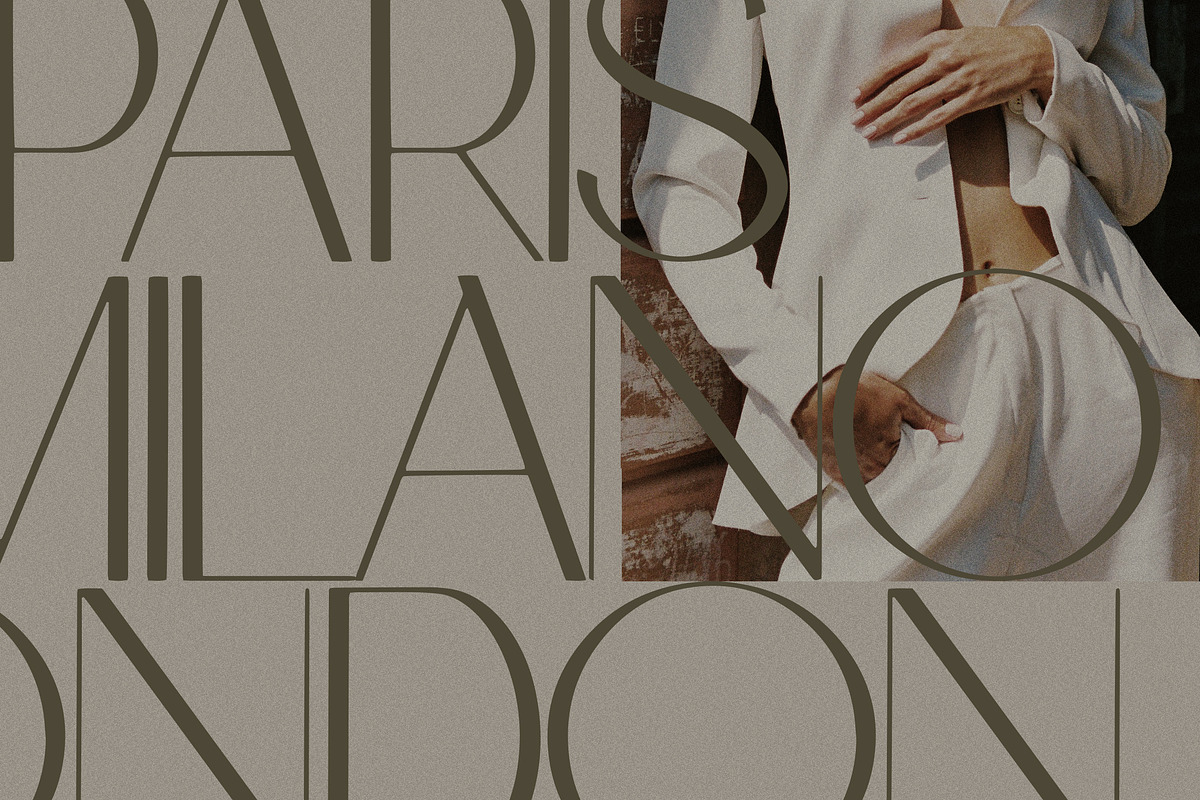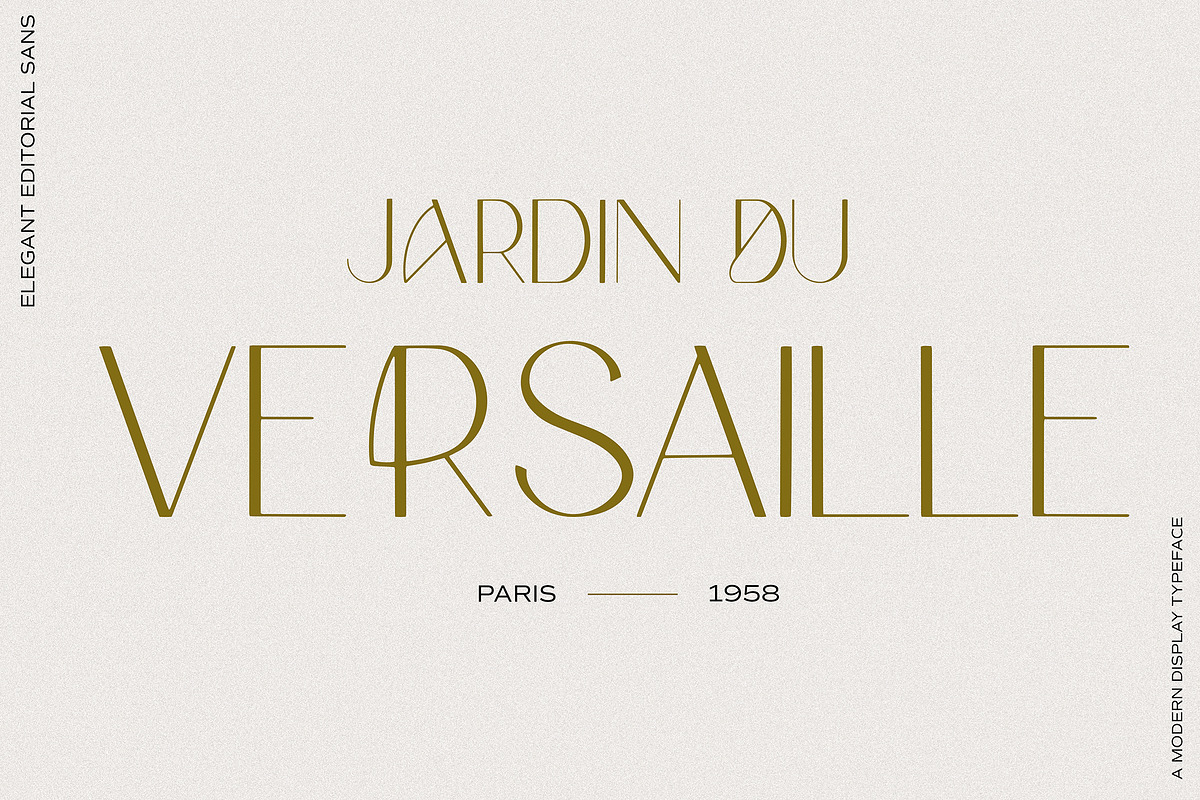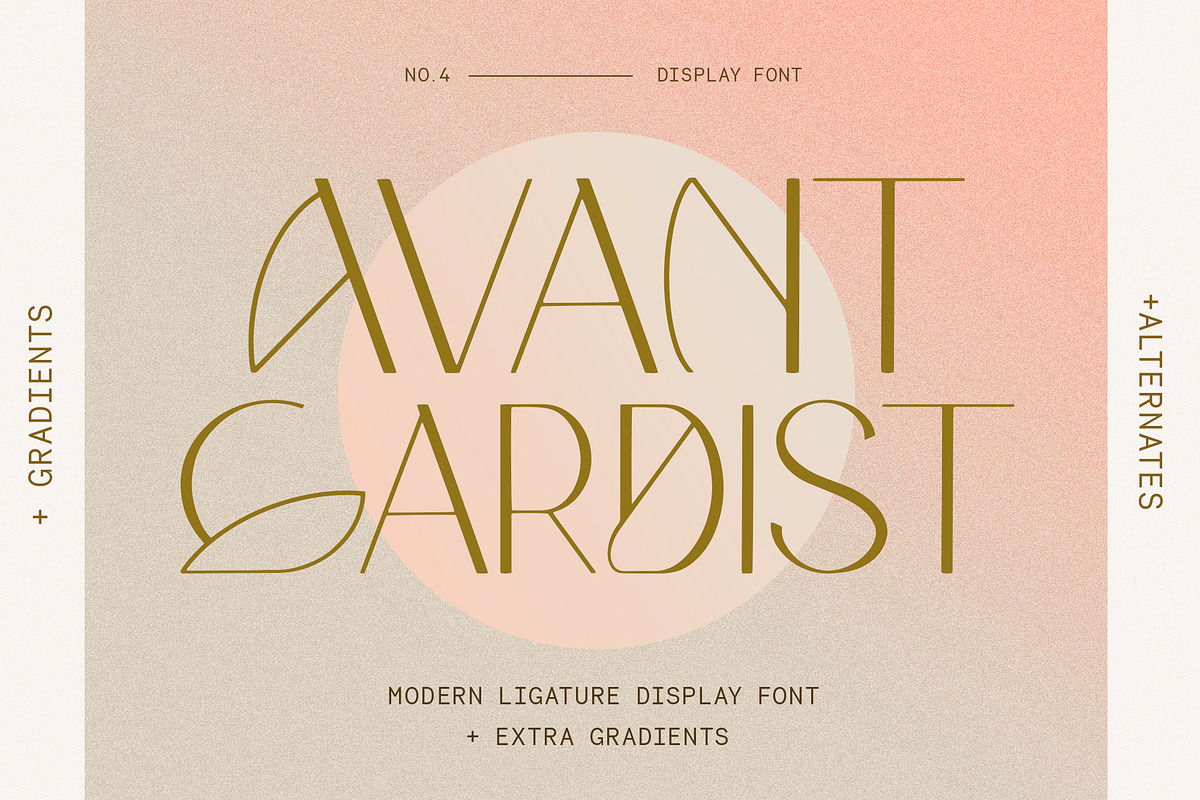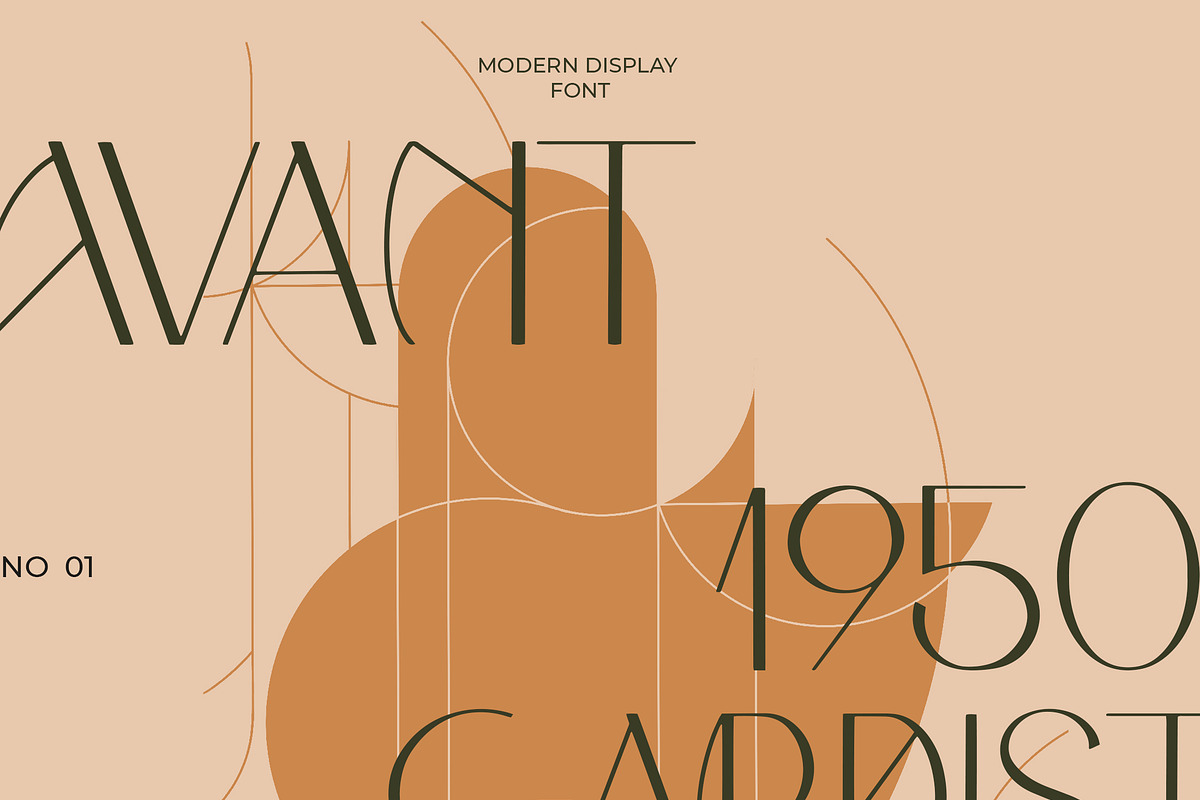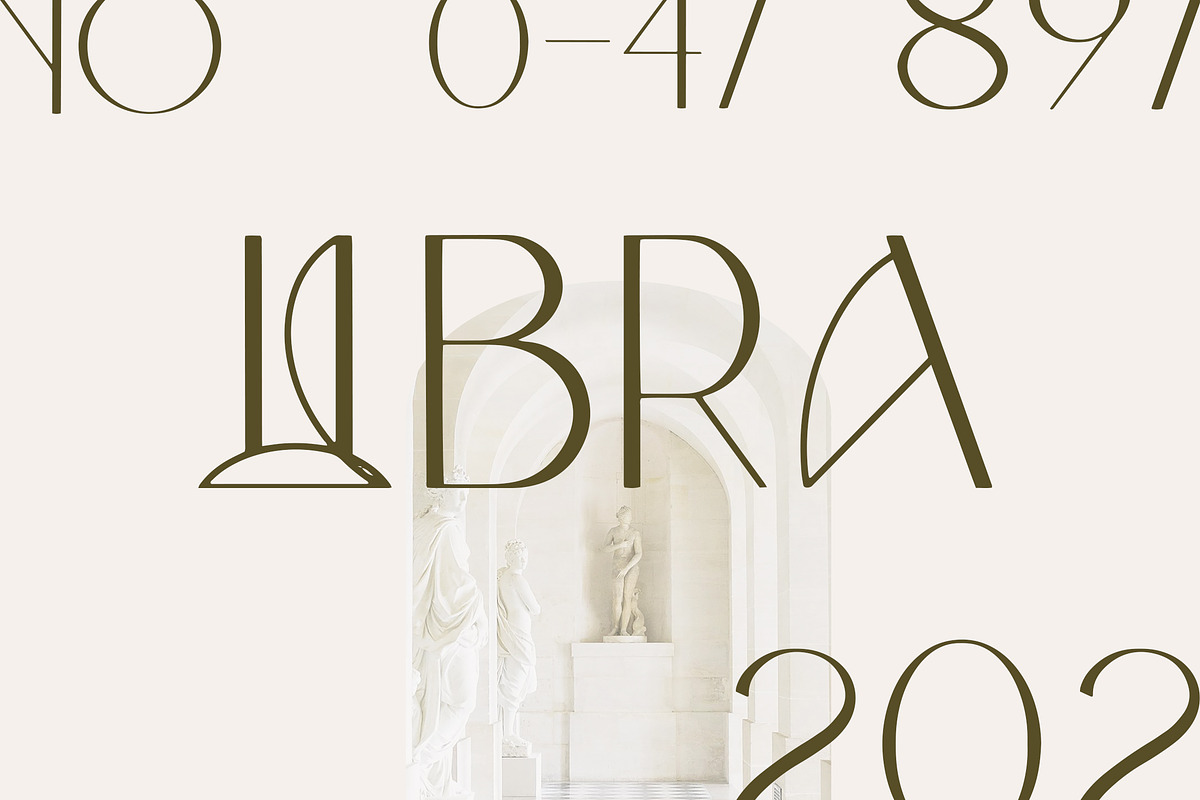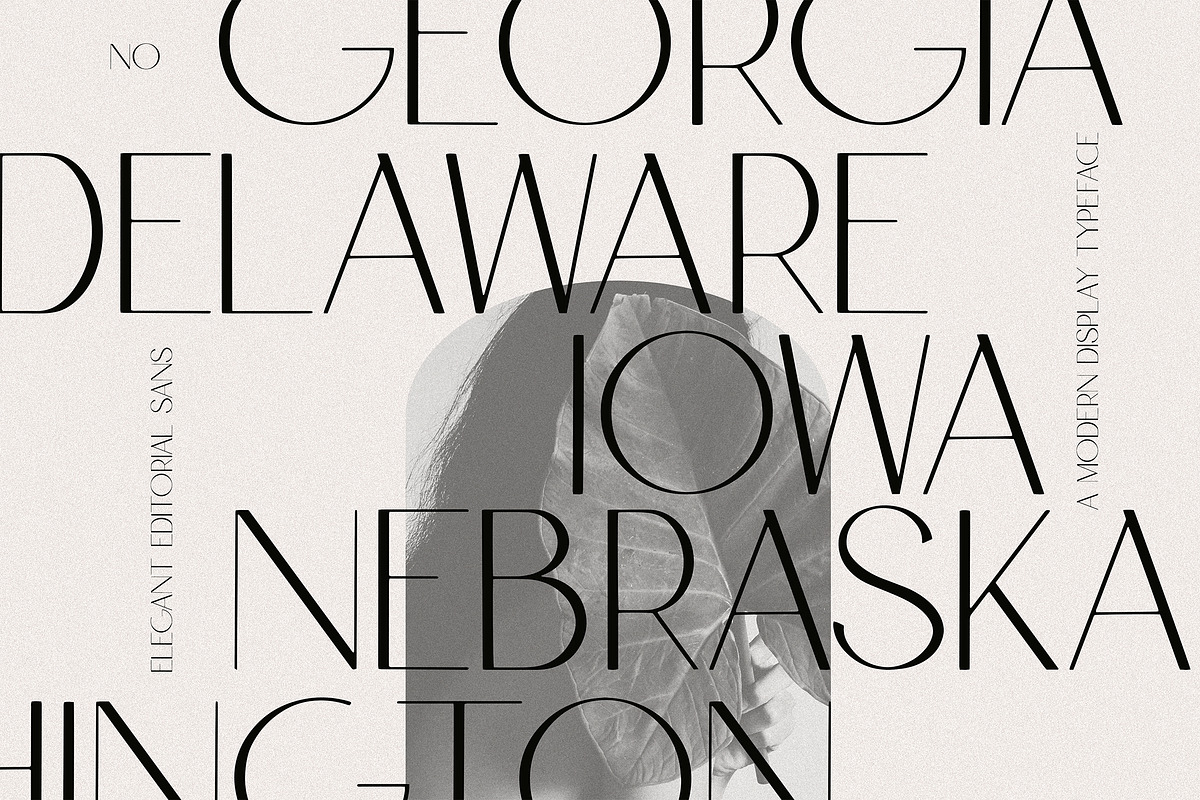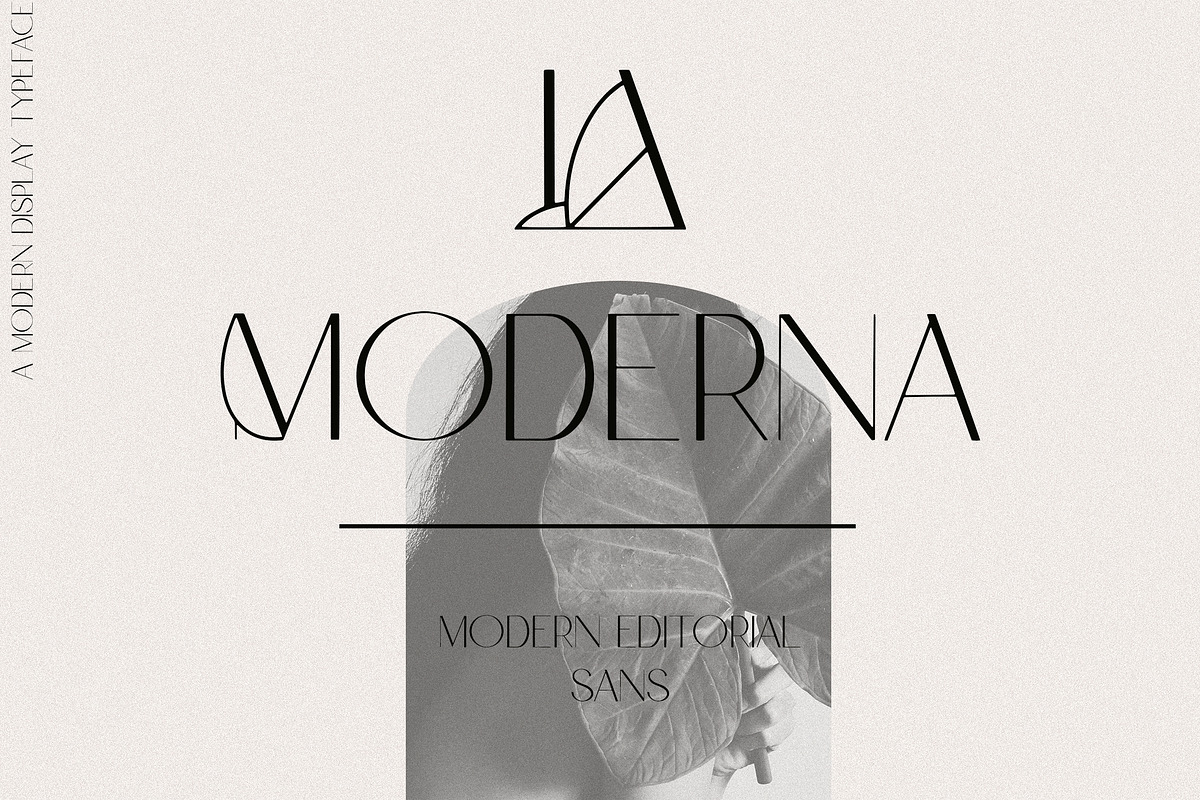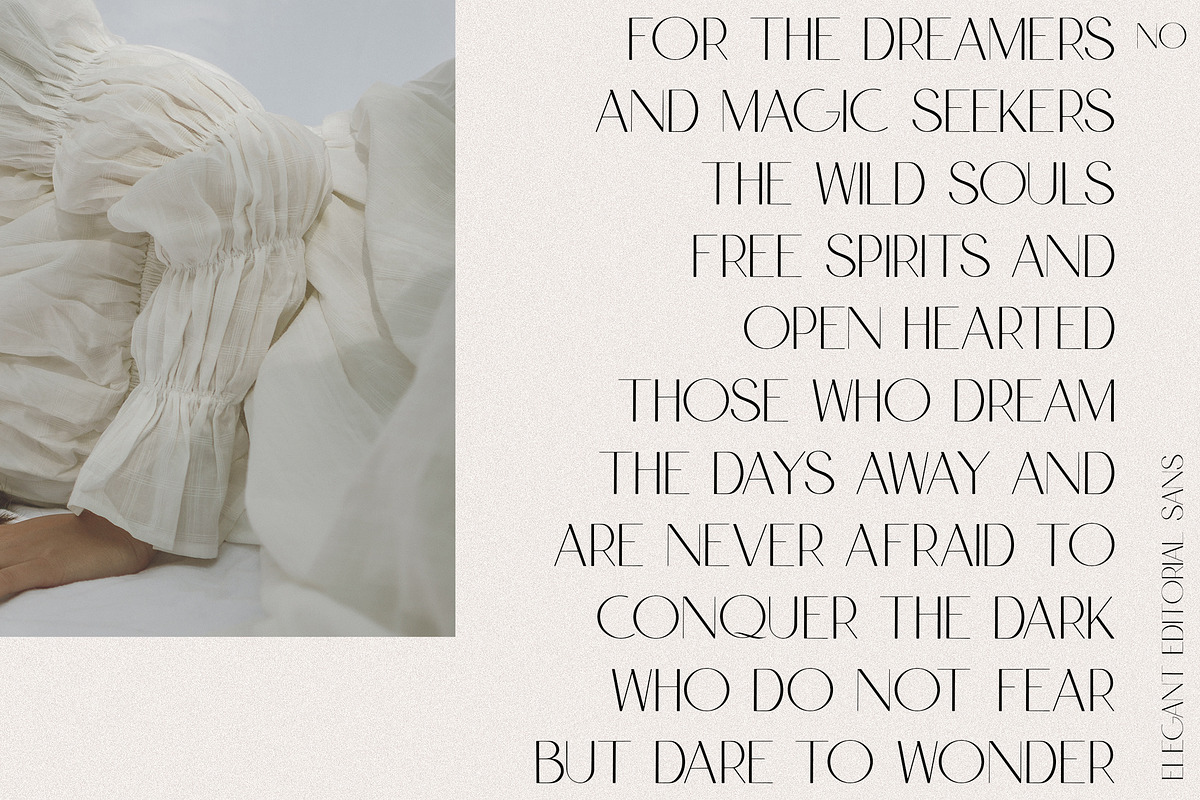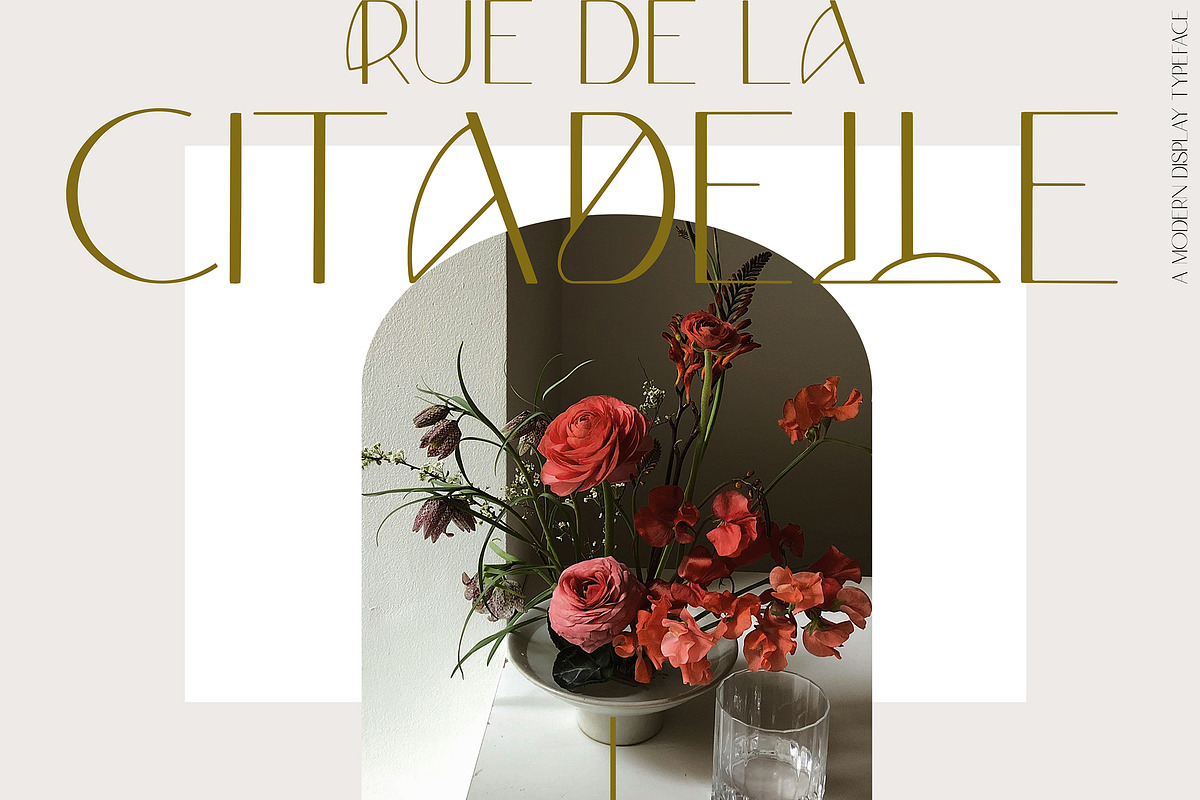
Avantgardist Modern Ligature Font
Avantgardist is a modern sans serif ligature font with a mid century modern twist, inspired by modernism and accents of Art Nouveau. An all-caps Avant-Garde display typeface, including multiple creative alternates and a set of ligatures.
A blend of centuries, this remarkable editorial sans takes it’s refined inspiration from 20-ies century modernist art, accented with contemporary details and an extravagant finish. A refined elaborate ligature font for editorial, wedding stationery, branding and fine art design.